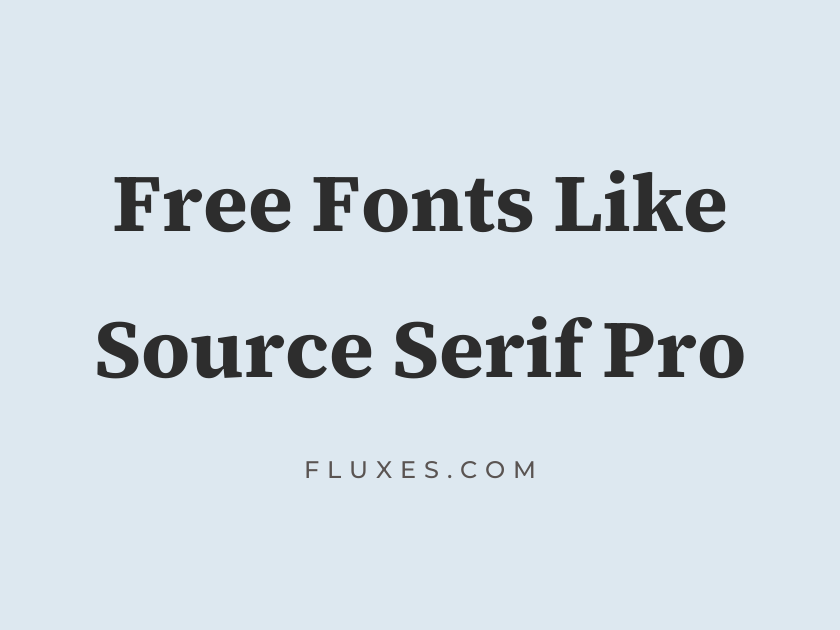
15 Best Free Fonts Similar to Source Serif Pro
Source Serif Pro earned its place in countless interfaces and editorial layouts because it was built to be read, not just looked at. Adobe designed it as a companion to Source Sans and Source Code, and that pedigree shows in its calm proportions, moderate contrast, and sturdy serifs that hold up beautifully in body copy. If you need a free alternative for a documentation site, a long-form publication, or a UI that pairs a serif with a humanist sans, Google Fonts has a strong bench of transitional and old-style serifs that share its restrained, workmanlike character.
The fonts below share Source Serif Pro’s DNA in different ways: some match its text-friendly proportions, some echo its slightly cool, screen-optimized feel, and others bring a bit more warmth or editorial flavor while still working hard at small sizes.
Reading comfort was the whole point of this design
This is the obvious starting point, since it is the direct successor to Source Serif Pro, now folded into a single variable family with updated spacing and optical sizes for text and display use. If you want the closest thing to the original with modern refinements, this is it, and it remains free to download from Google Fonts.
Gelasio
Built for screens, still comfortable in long paragraphs
Gelasio
Designed as a free, metric-compatible match for the font most people compare Source Serif Pro to mentally, this one is available directly from Google Fonts. The rest of this list sticks to genuinely free Google Fonts alternatives with a similar screen-reading pedigree.
Consistent, dependable text across many languages
Google’s own workhorse serif was engineered for the same kind of interface and documentation duty as Source Serif Pro. It has similar even color, moderate x-height, and a lack of fuss that makes it disappear into the reading experience, which is exactly the compliment a text face wants.
Warm curves for articles that invite slow reading
Lora brings slightly more calligraphic warmth than Source Serif Pro’s crisper transitional structure, but the two share a similar text weight and a comfortable rhythm on the page. It has become a default choice for blogs and editorial sites for good reason: it renders cleanly at 16 to 20px and never feels brittle.
Clear letterforms designed for extended reading
Commissioned for Cyrillic and Latin text together, PT Serif carries a practical, no-nonsense structure close to Source Serif Pro’s own utilitarian streak. It is a dependable pick when you need a serif that reads well in dense paragraphs of body text rather than showing off in headlines.
A book-like serif for essays and long reads
Crimson Pro leans a touch more toward classic book typography, with a lower contrast and gentle warmth that flatters long-form articles. Its variable font support and range of weights make it flexible for editorial systems that need both a readable text size and a graceful italic for pull quotes.
Sturdy text built for screens of every size
Merriweather was designed specifically to be pleasant on screens, with tall x-heights and slightly condensed letters that resist the mushiness many serifs suffer at small sizes. Where Source Serif Pro feels understated and neutral, Merriweather has a bit more personality and heft, which makes it a nice option when a body serif also needs to carry some visual weight in headings.
A humanist sans built to match this serif
Not a serif alternative at all, but the natural pairing partner: Source Sans was designed alongside Source Serif Pro from the start, and the two share proportions and a similar sense of restraint. Use this for UI labels, captions, or navigation while keeping a serif from this list for body text.
Steady, legible serif text for editorial pages
Vollkorn was built as a sturdy, no-drama text face for German-language books and articles, and that same steadiness translates well to any long-form site. It sits close to Source Serif Pro in weight and rhythm, without calling attention to itself.
Slab-leaning serif that stays sharp at small sizes
Bitter’s slab-inspired terminals and confident stroke weight give it a bit more presence at small screen sizes than Source Serif Pro’s cooler transitional forms. It is worth trying anywhere Source Serif Pro feels slightly too neutral and a design wants a touch more character without abandoning readability.
Screen-first serif tuned for reading interfaces
Spectral was commissioned by WordPress specifically for on-screen reading, so its goals overlap directly with Source Serif Pro’s. Expect even color, a wide range of weights, and an italic that holds up nicely in captions and blockquotes.
Literata
Optimized serif text for ebooks and articles
Literata
Originally built for Google Play Books, Literata was tuned across optical sizes for exactly the kind of sustained reading Source Serif Pro handles well. Its variable font structure lets you dial in weight and size for both body copy and headlines from a single family, which simplifies a typographic system considerably.
If you are replacing Source Serif Pro in an existing design system, start with Source Serif 4; it requires the least rework since it shares the same underlying structure.
Any of these free Google Fonts choices will carry long-form text with the same calm confidence that made Source Serif Pro popular in the first place. Test a few directly in your layout, since small differences in x-height and contrast can matter more than they appear in a specimen line.